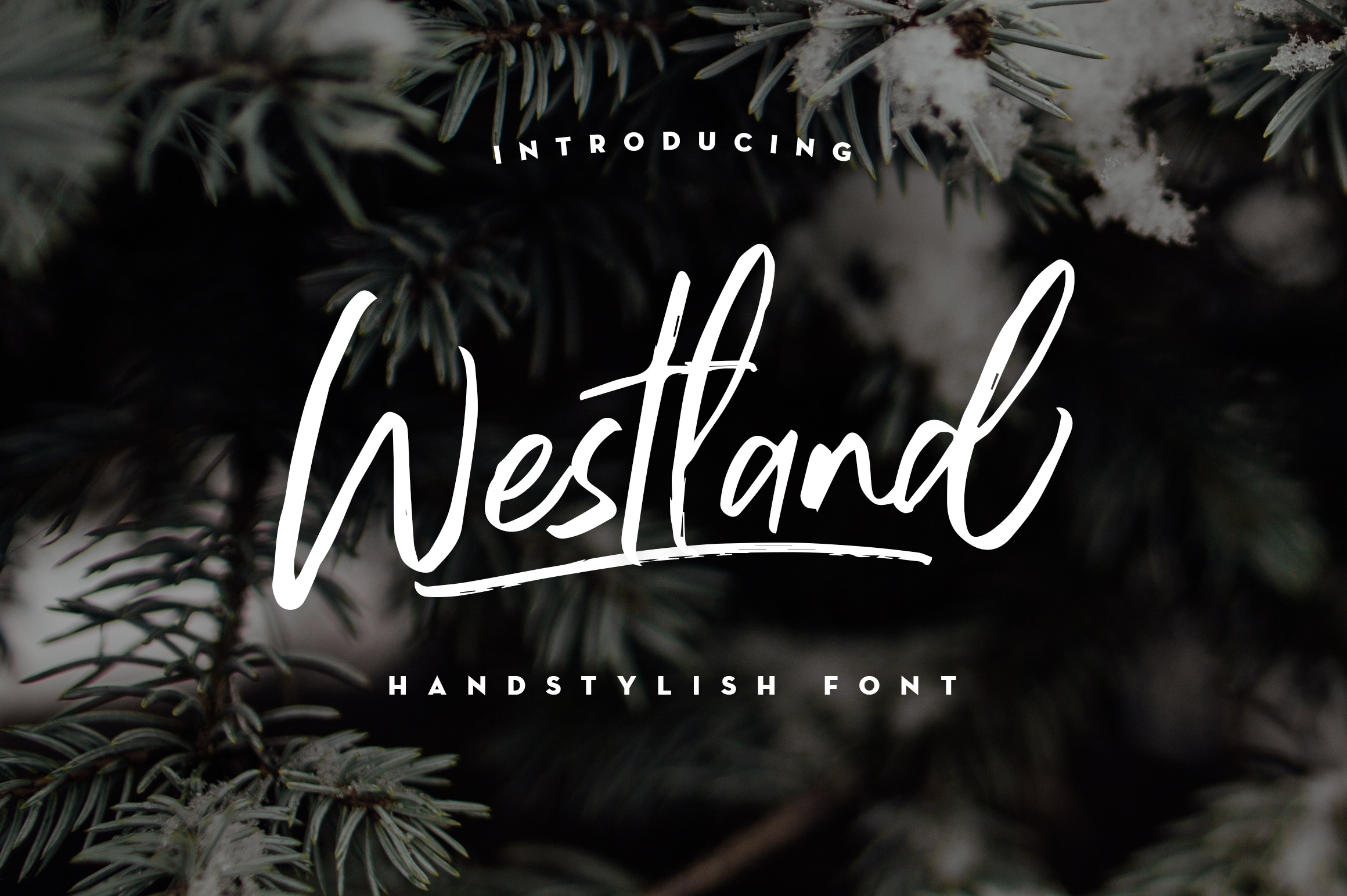
Westland Handstylish Font
Say hello to Westland Handstylish Font! For the first time I created a font with the prefix "W" (not very important, but very interesting to me) Perfect for logos, headers, quotes, product packaging, greeting cards, business cards and other creative possibilities. I hope you have an explosion using Westland Handstylish Font!
- Lots of ligatures and alternates
- 7 swash ligatures